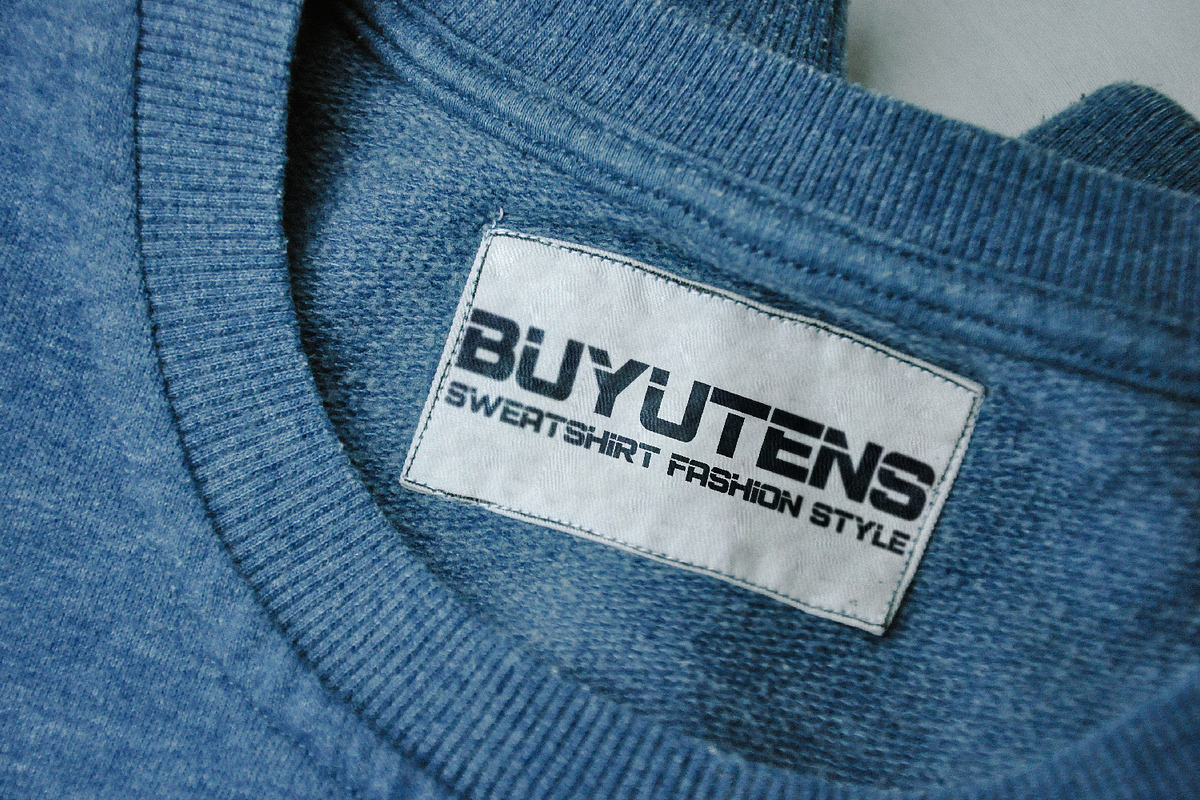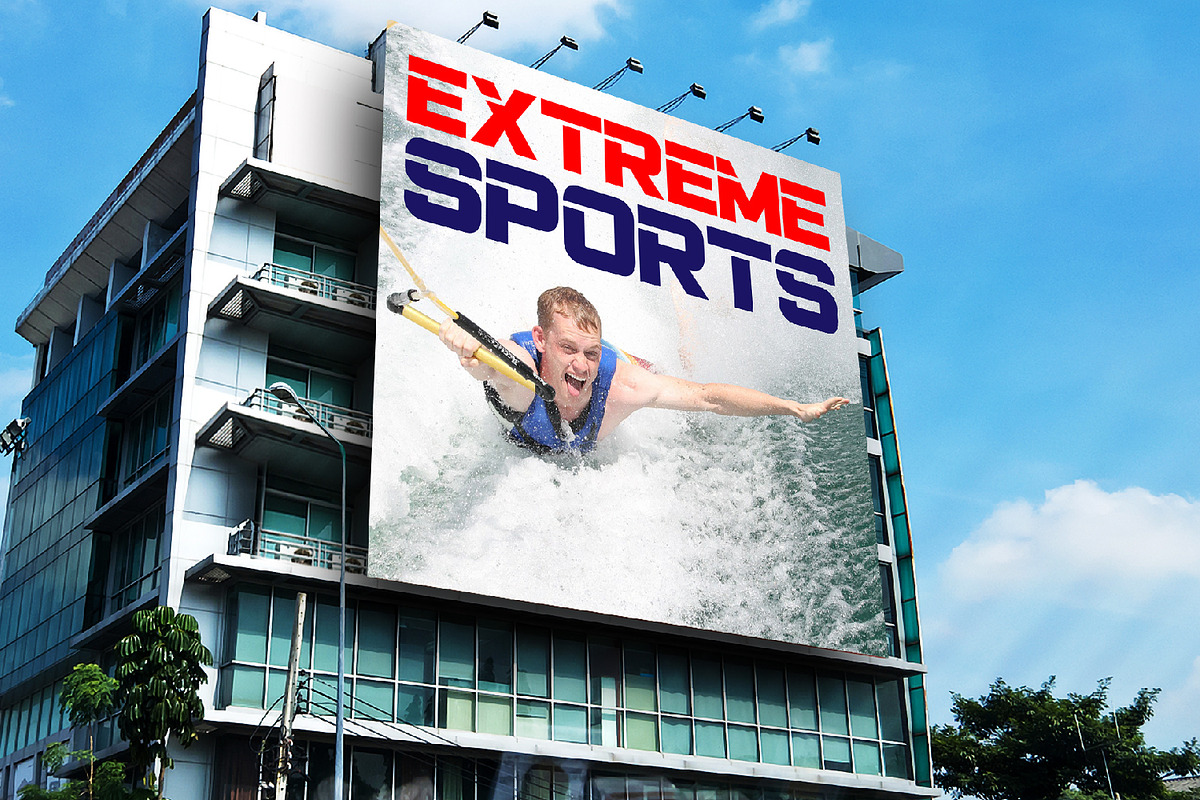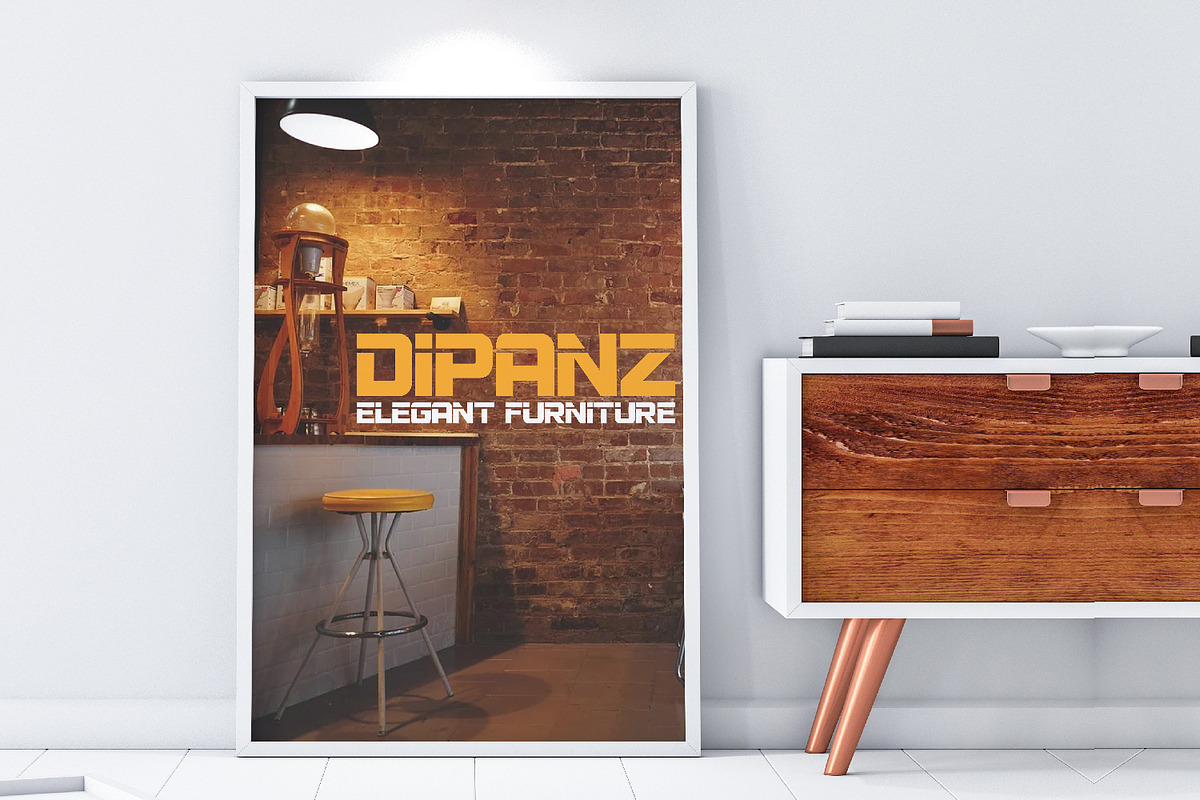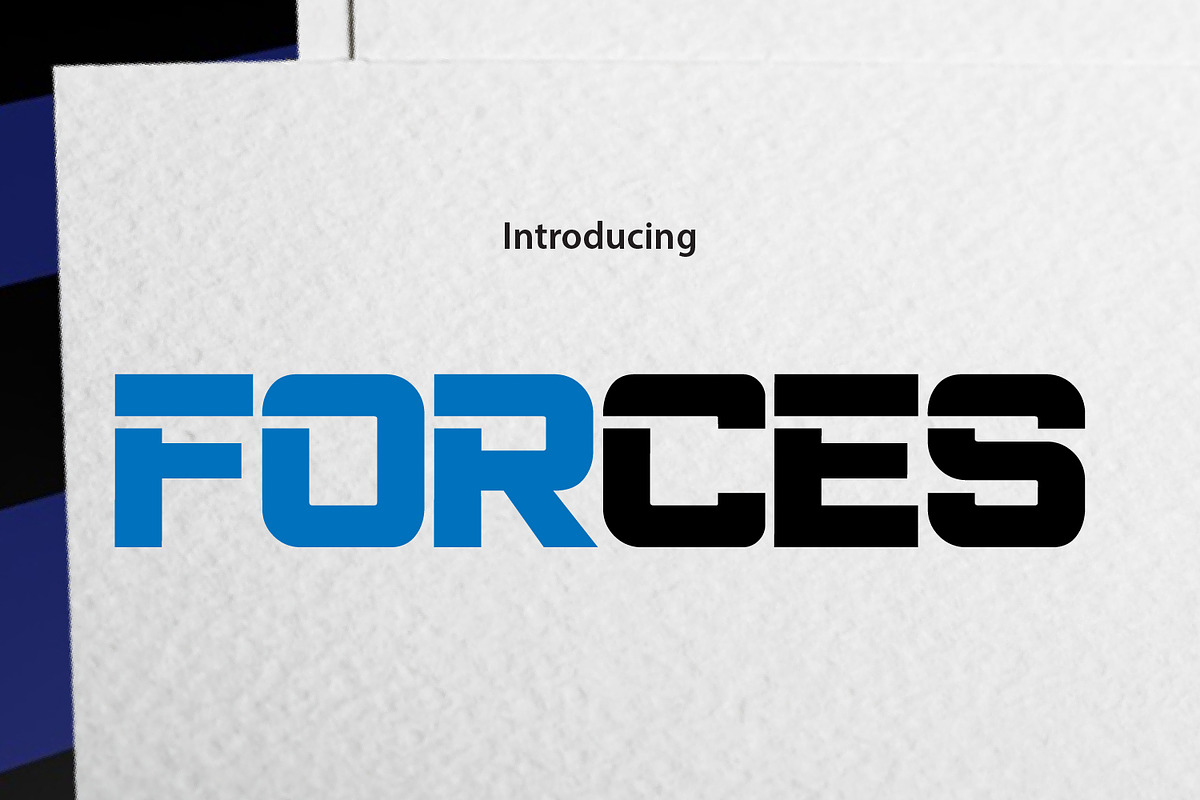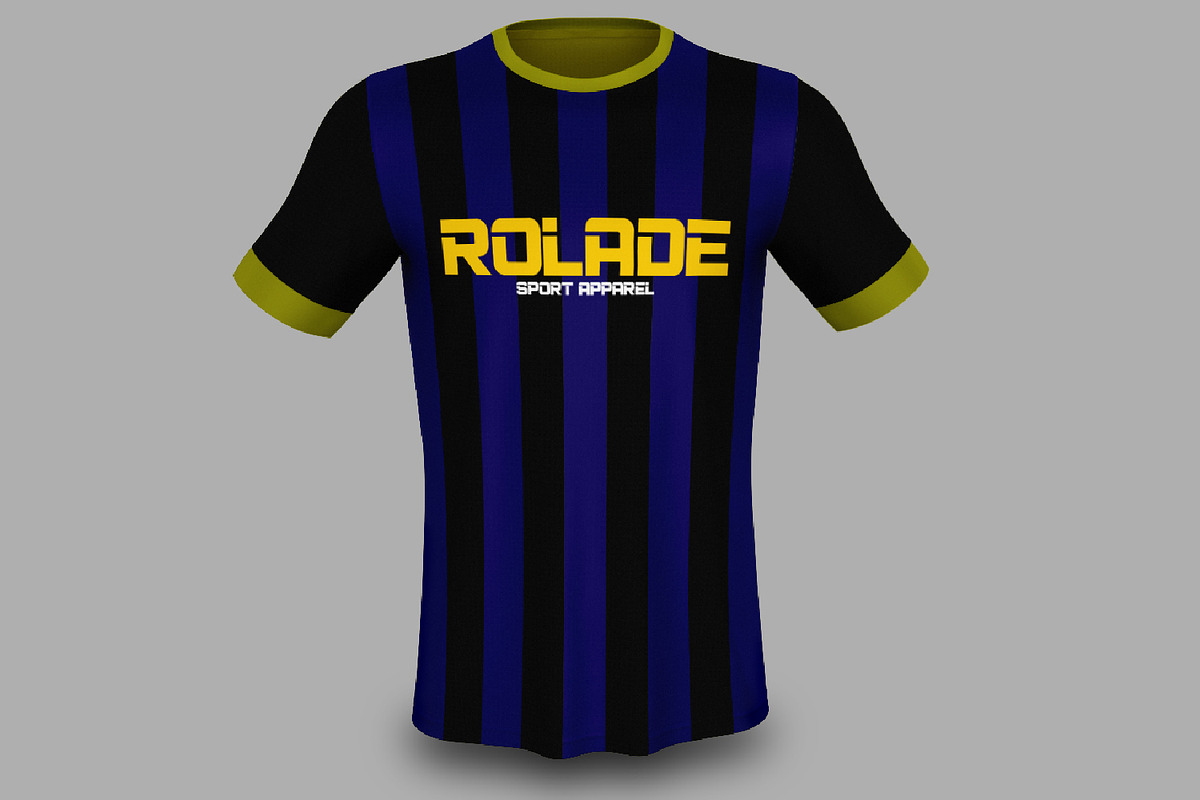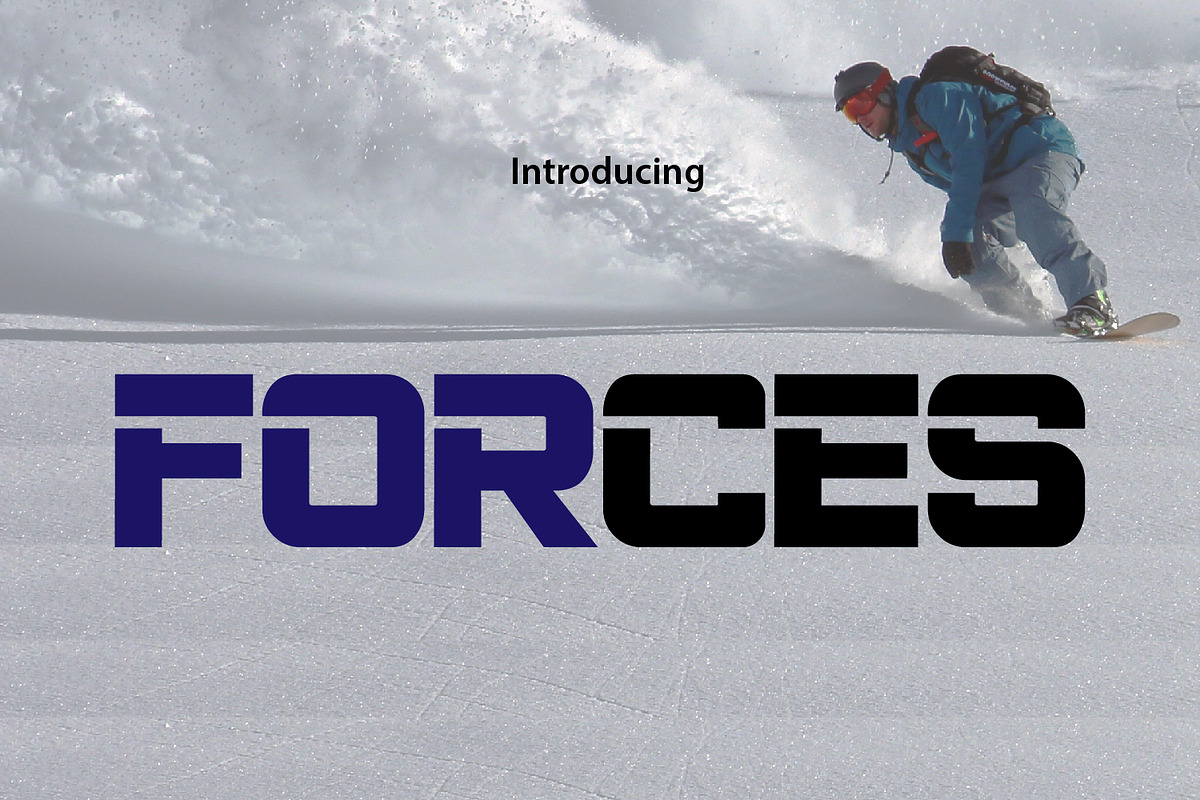
FORCES
FORCES is refreshing patterns against unusual things, to have charm and character and make it more elegant and exclusive. suitable to use various interests and stay adjust to your needs